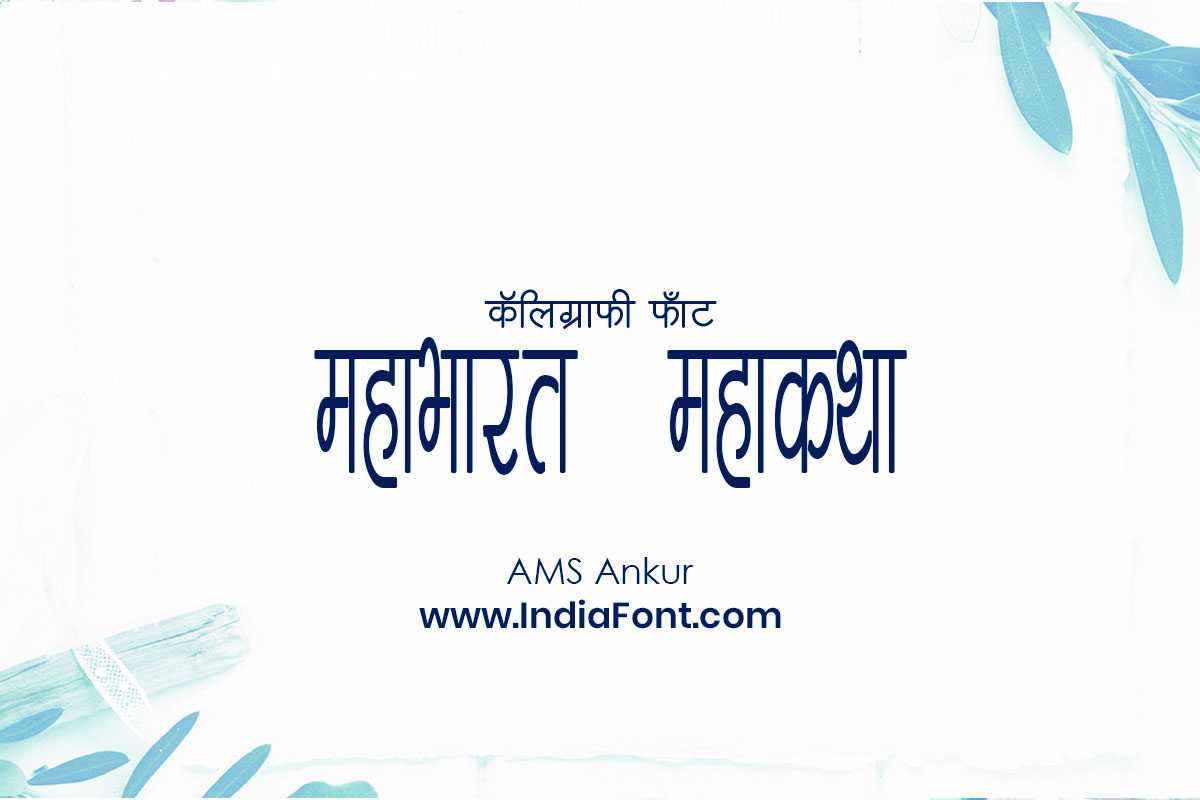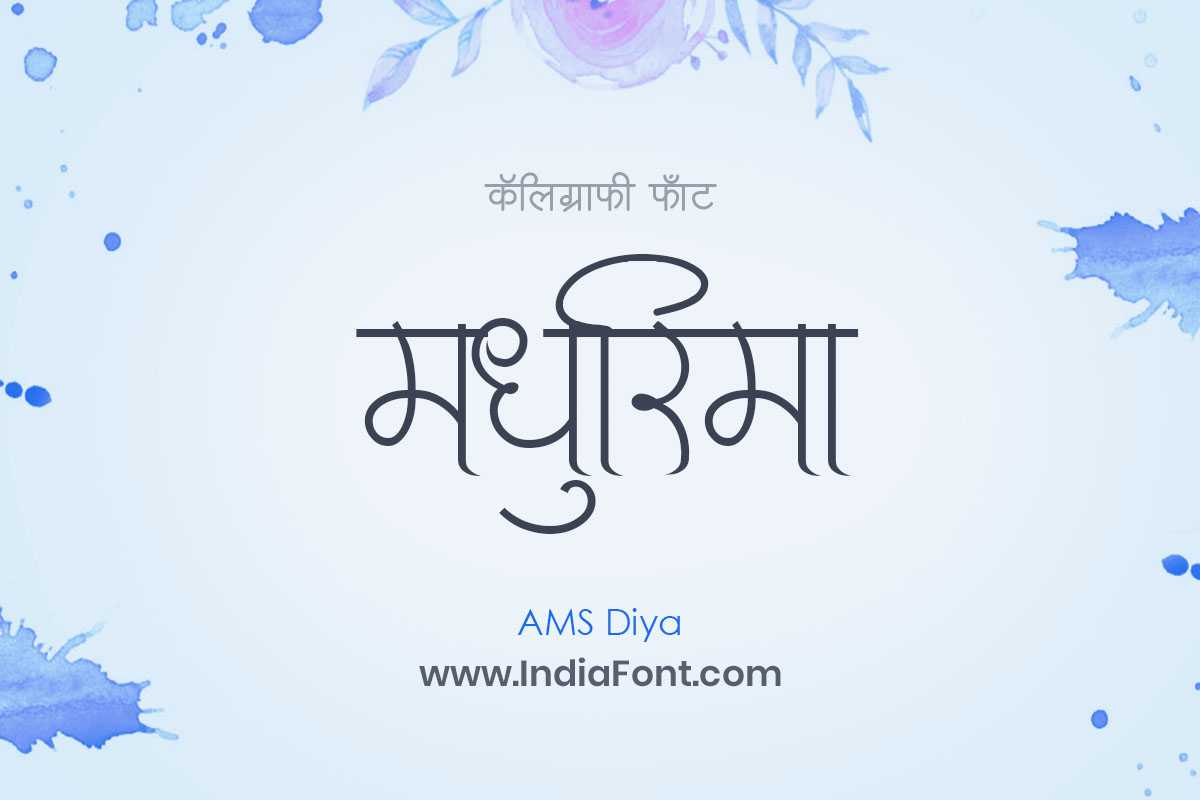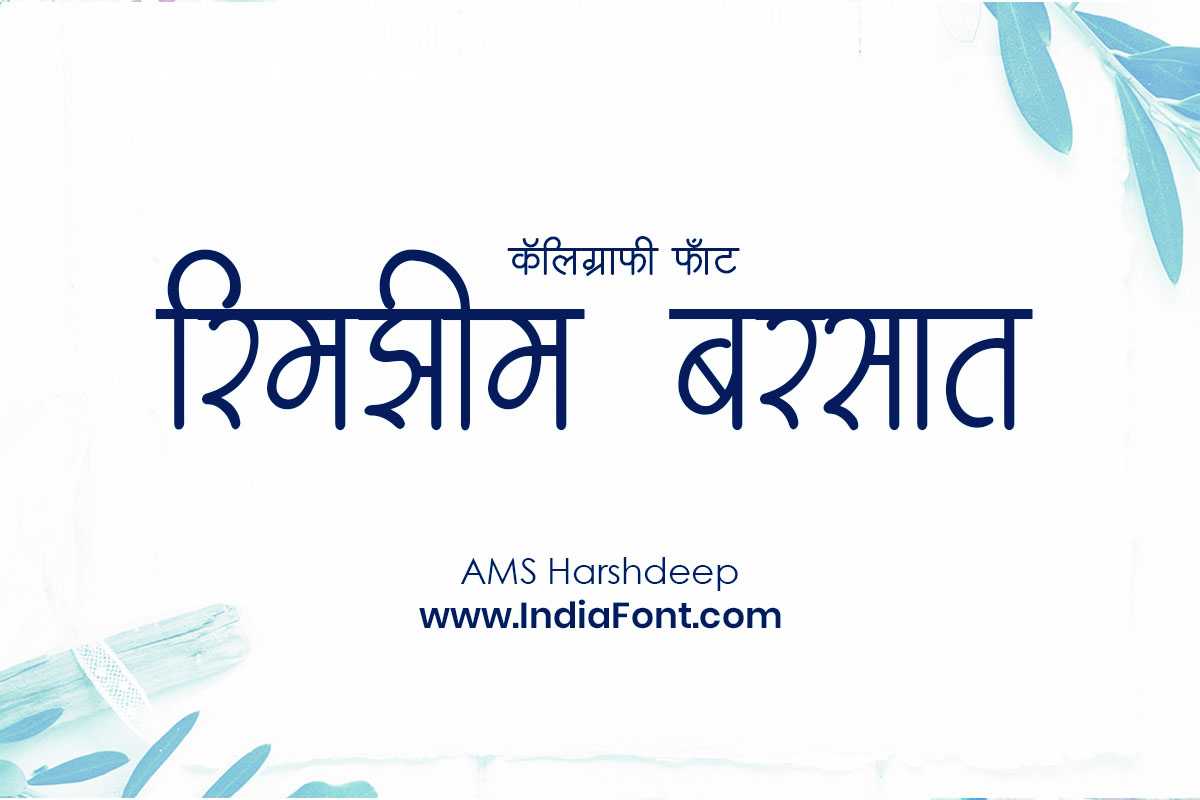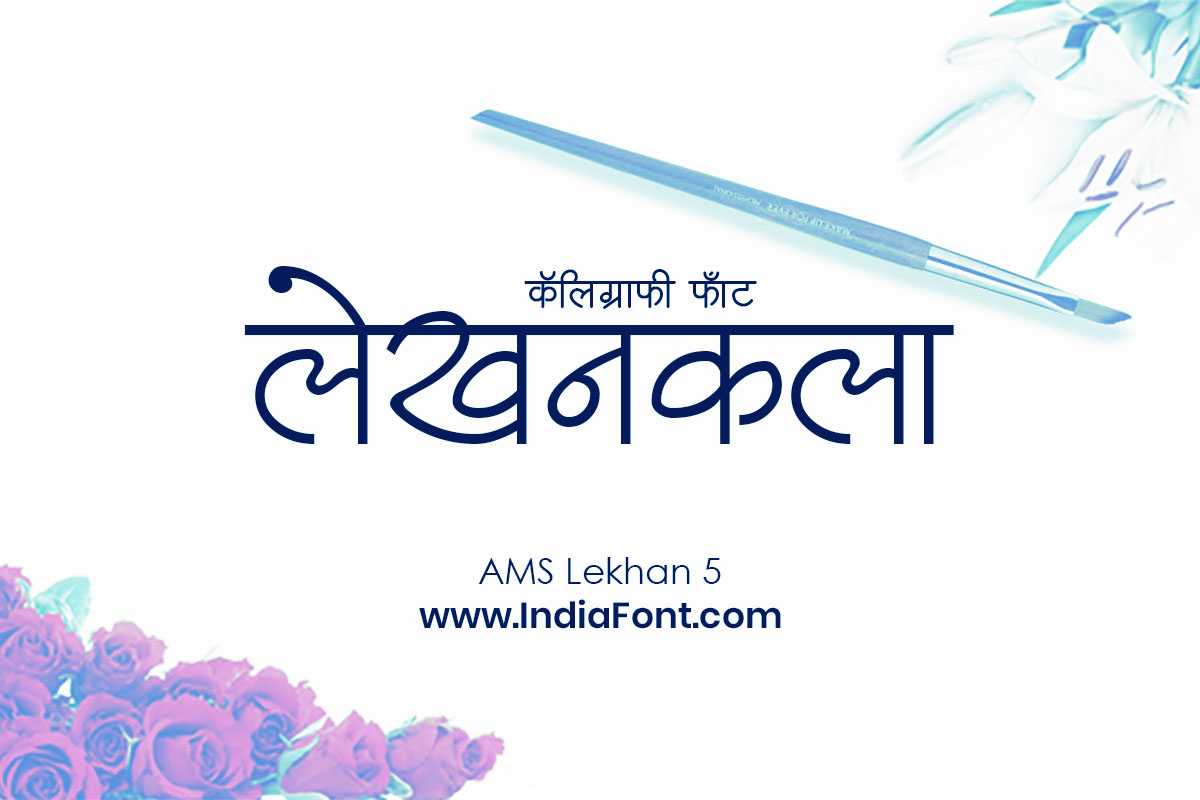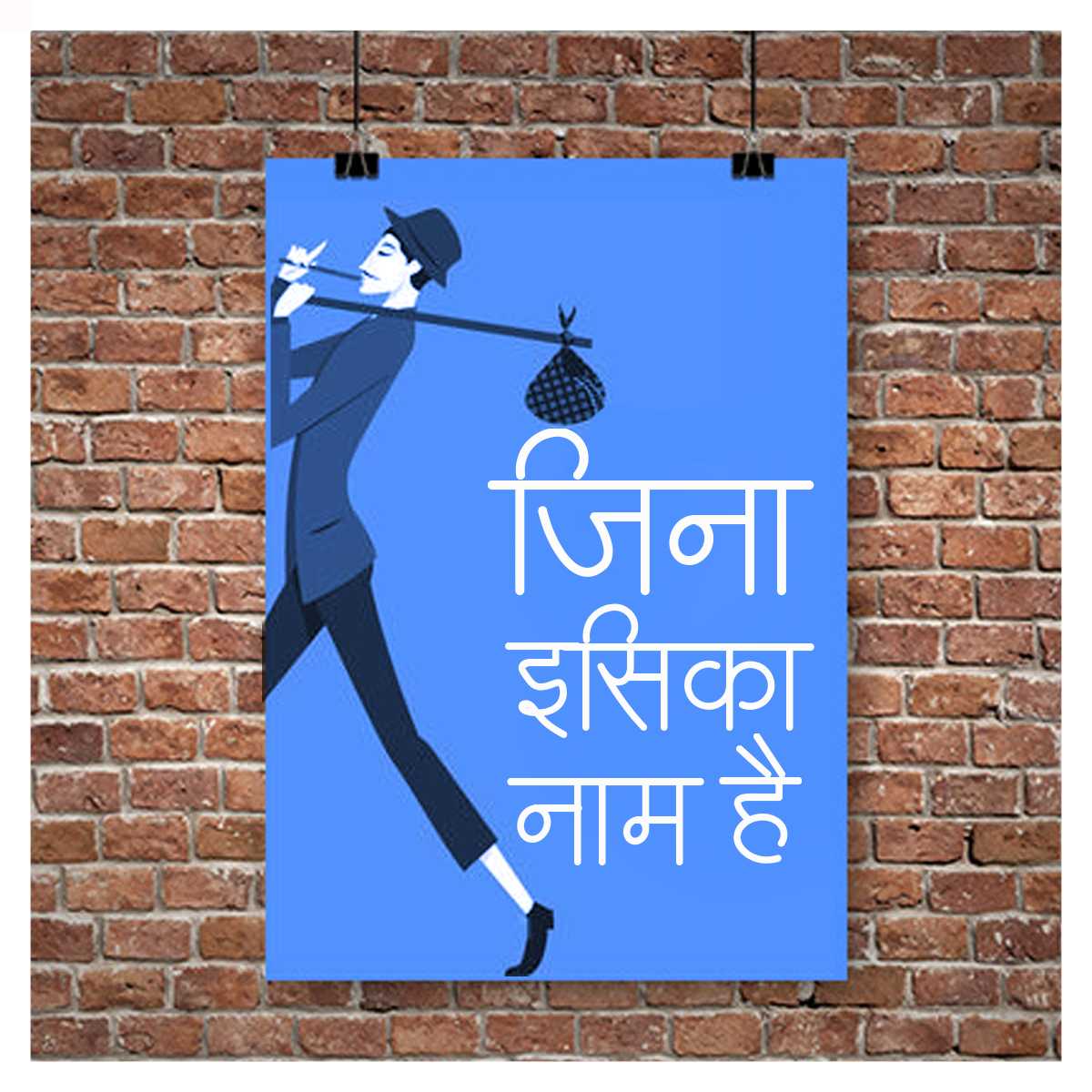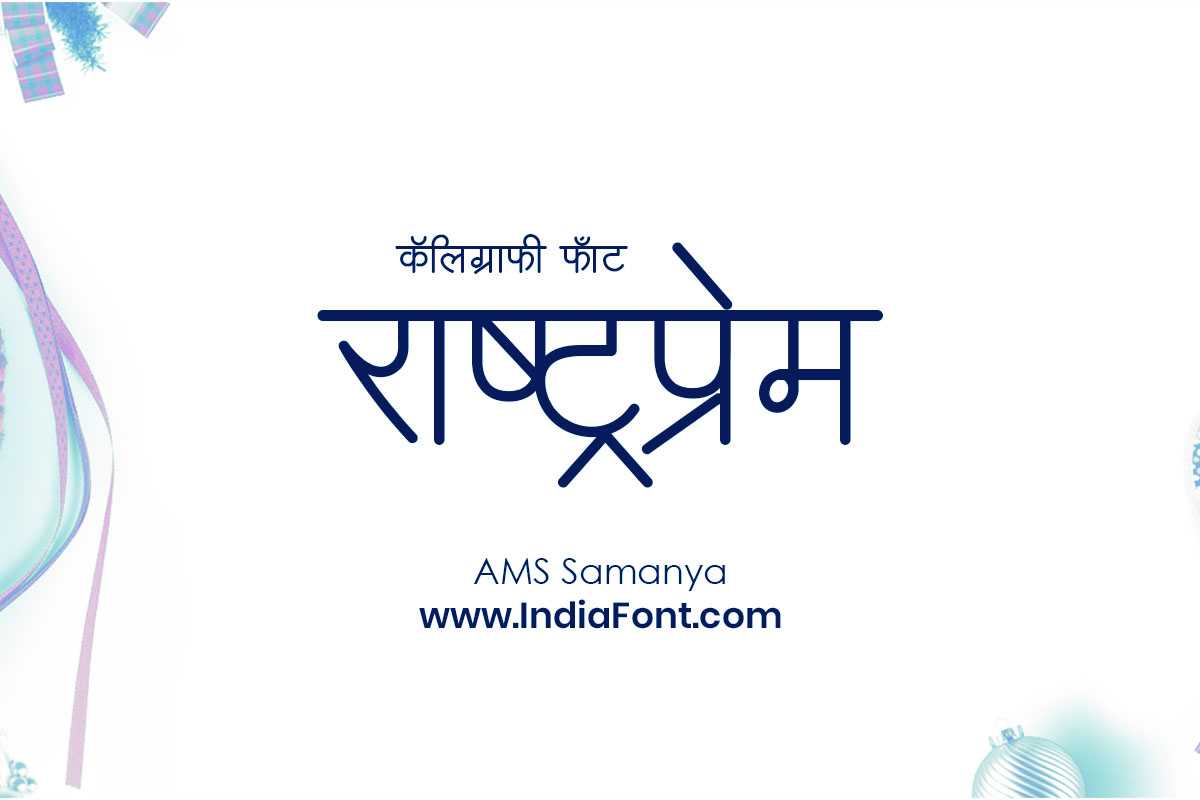
AMS Ankur is a font designed specifically to elevate your Hindi and Marathi publications. With its refined style and exceptional legibility, this font brings a touch of professionalism and elegance to your printed materials.
AMS Bhagyshri is an exceptional publication font that brings elegance and sophistication to your Hindi and Marathi projects. With its refined design and impeccable readability, this font ensures a seamless reading experience for your audience.
AMS Bindu Rekha 1 is a unique decorative font that showcases an enchanting dotted line design. With its creative and captivating letterforms, this font adds a touch of intrigue and visual interest to your Hindi and Marathi designs.
AMS Bindu Rekha 1 Bold font is a unique decorative font that showcases an enchanting dotted line design. With its creative and captivating letterforms, this font adds a touch of intrigue and visual interest to your Hindi and Marathi designs.
AMS Calligraphy 2 allows you to infuse your Hindi and Marathi creations with the timeless allure of calligraphy. Experience the artistry and precision of this exquisite font and watch as it transforms your designs into visual masterpieces.
Embark on a journey of elegance and beauty with AMS Darshana, a Hindi and Marathi calligraphy font. With its graceful curves and expressive letterforms, AMS Darshana captures the essence of sophistication.
Unleash your creativity with AMS Divya, a captivating calligraphy font that combines grace and elegance. Whether you're searching for AMS Divya font download options or free AMS calligraphy fonts, AMS Divya will add a touch of sophistication to your designs.
Light up your typography with AMS Diya, a versatile publication font that brings clarity and readability to your designs. Whether you're searching for AMS Diya font download options or specifically looking for AMS Diya publication font, this font is perfect for various design applications.
Introducing AMS Girija, a publication font that brings clarity and legibility to your designs. Whether you're seeking AMS Girija font download options or specifically looking for AMS Girija publication font, this font is your perfect companion.
Elevate your designs with the timeless beauty of AMS Gourav, a Hindi and Marathi calligraphy font that exudes elegance and refinement. Whether you're searching for AMS Gourav font download options or free AMS calligraphy fonts, AMS Gourav will add a touch of sophistication to your projects.
Indulge in the beauty of AMS Handwriting 4, a Hindi and Marathi calligraphy font that captures the essence of free-flowing creativity. With its unique and organic letterforms, this font adds a touch of artistic charm to your designs.
Illuminate your designs with AMS Harshdeep, a captivating font that brings a touch of elegance and uniqueness. Whether you're searching for free AMS fonts, specifically looking for AMS Harshdeep font download options, or exploring AMS Hindi font download choices, AMS Harshdeep is sure to impress.
Indulge in the allure of handmade artistry with AMS Hastkala 2, a font that captures the spirit of creativity and craftsmanship. Whether you're seeking free AMS fonts, exploring AMS Hastkala 2 font download options, or looking for AMS Hindi font download choices, AMS Hastkala 2 is your gateway to artistic expression.
Discover the elegance of AMS Indu font, a Hindi and Marathi font that exudes sophistication and grace. Whether you're searching for free AMS fonts, specifically looking for AMS Indu font download options, or exploring AMS Hindi font download choices, AMS Indu will elevate your designs.
Add a touch of elegance and charm to your designs with AMS Kangna, a Hindi and Marathi font that exudes beauty and grace. Whether you're seeking free AMS fonts, exploring AMS Kangna font download options, or looking for AMS Hindi font download choices, AMS Kangna will elevate your designs.
Discover the essence of compassion and warmth with AMS Karuna, a font that exudes a sense of care and friendliness. Whether you're seeking free AMS fonts, exploring AMS Karuna font download options, or looking for AMS Hindi font download choices, AMS Karuna will bring a touch of empathy to your designs.
Indulge in the timeless elegance of AMS Kashi, a Hindi and Marathi font that captures the spirit of tradition and grace. Whether you're searching for free AMS fonts, specifically looking for AMS Kashi font download options, or exploring AMS Hindi font download choices, AMS Kashi will add a touch of sophistication to your designs.
Celebrate uniqueness and individuality with AMS Kirti, a decorative font that stands out from the crowd. Whether you're seeking free AMS fonts, exploring AMS Kirti font download options, or looking for AMS decorative fonts, AMS Kirti will add a touch of personality and charm to your designs.